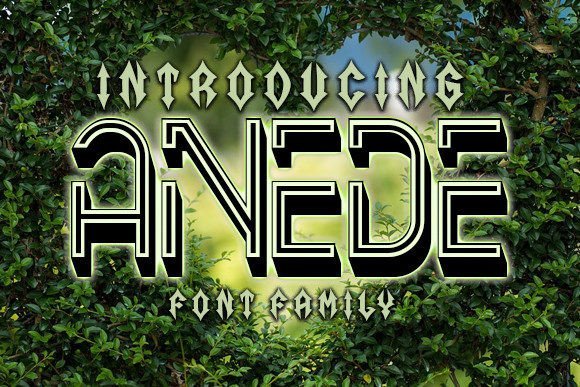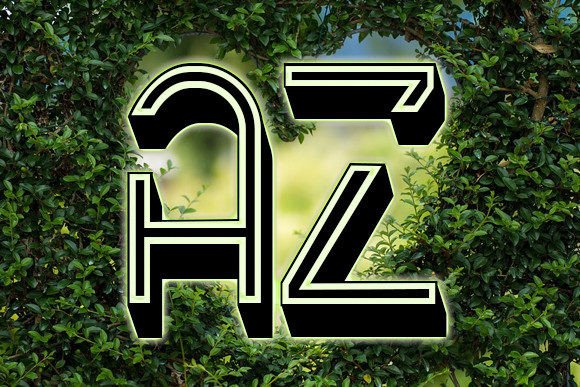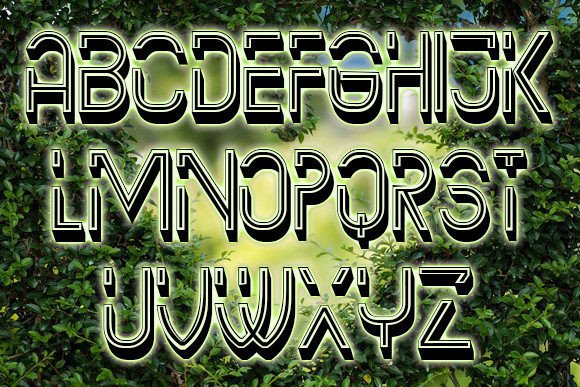
Discover the Perfect Blend of Style and Uniqueness with Anede Font
Have you ever been stuck on a design project, searching for that perfect font to bring your vision to life? You know, that moment when everything feels just a bit ‘off’ until you stumble upon the perfect combination of style and uniqueness? That’s exactly what happened to many designers who discovered Anede Font.
Anede Font is a stylish and interesting display font designed to make your projects stand out from the crowd. With its distinctive look, it’s perfect for adding a touch of personality to your designs, whether it’s a logo, a poster, or a social media graphic. As a valuable addition to any designer’s toolkit, Anede Font is sure to inspire creativity and bring your projects to the next level.
Anede Font Key Features
- Unique Characteristics: The font features a unique blend of modern and traditional elements, making it perfect for creating distinctive designs.
- Weight and Style: The font family includes various weights and styles, including light, regular, bold, and italic, offering flexibility for designers.
Anede Font Review
Overall, I think the Anede Font is a solid addition to any designer’s toolkit. ✨ Here are some of its strengths:
- Unique personality: Anede Font has a distinct, quirky feel that can add a lot of character to designs.
- Highly legible: Despite its unusual design, the font is surprisingly easy to read, even at smaller sizes.
- Good for headings: The font’s bold, eye-catching qualities make it well-suited for headings and titles.
- Not ideal for body text: While Anede Font is legible, it’s not the most comfortable font to read in large blocks of text.
- May be too quirky for some brands: If your brand is more conservative or traditional, Anede Font might be too out-there.
- Not as versatile as some other fonts: Anede Font is best suited for specific design projects – it may not be the best choice for every occasion.
Overall, I think the Anede Font is a great option for designers who want to add some personality to their work. It’s a fun, unique font that can really make a design pop. Just be aware of its limitations and use it thoughtfully.
Use Anede Font for:
- Headings and titles in designs.
- Creating a unique and eye-catching brand identity.
- Adding a touch of elegance to your designs.
For best results, use Anede Font in conjunction with high-contrast colors and clean design principles.